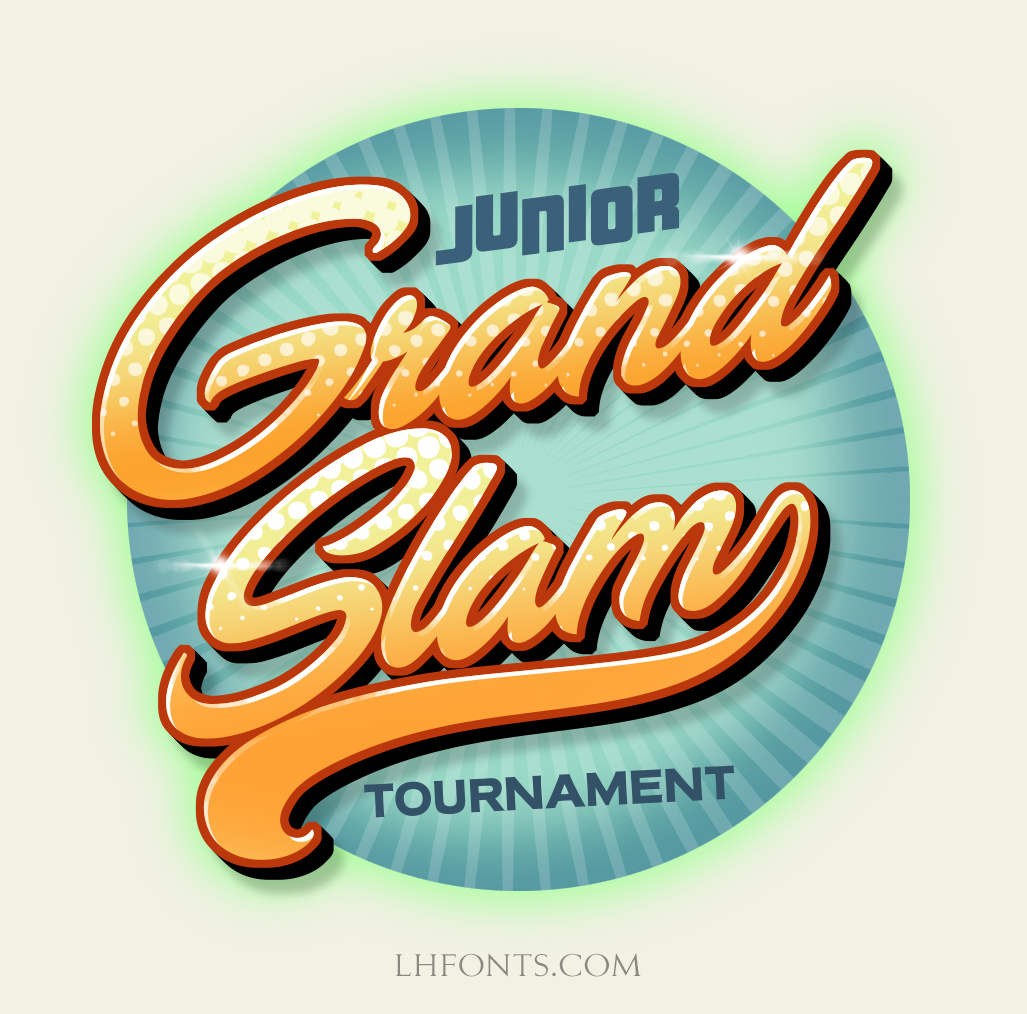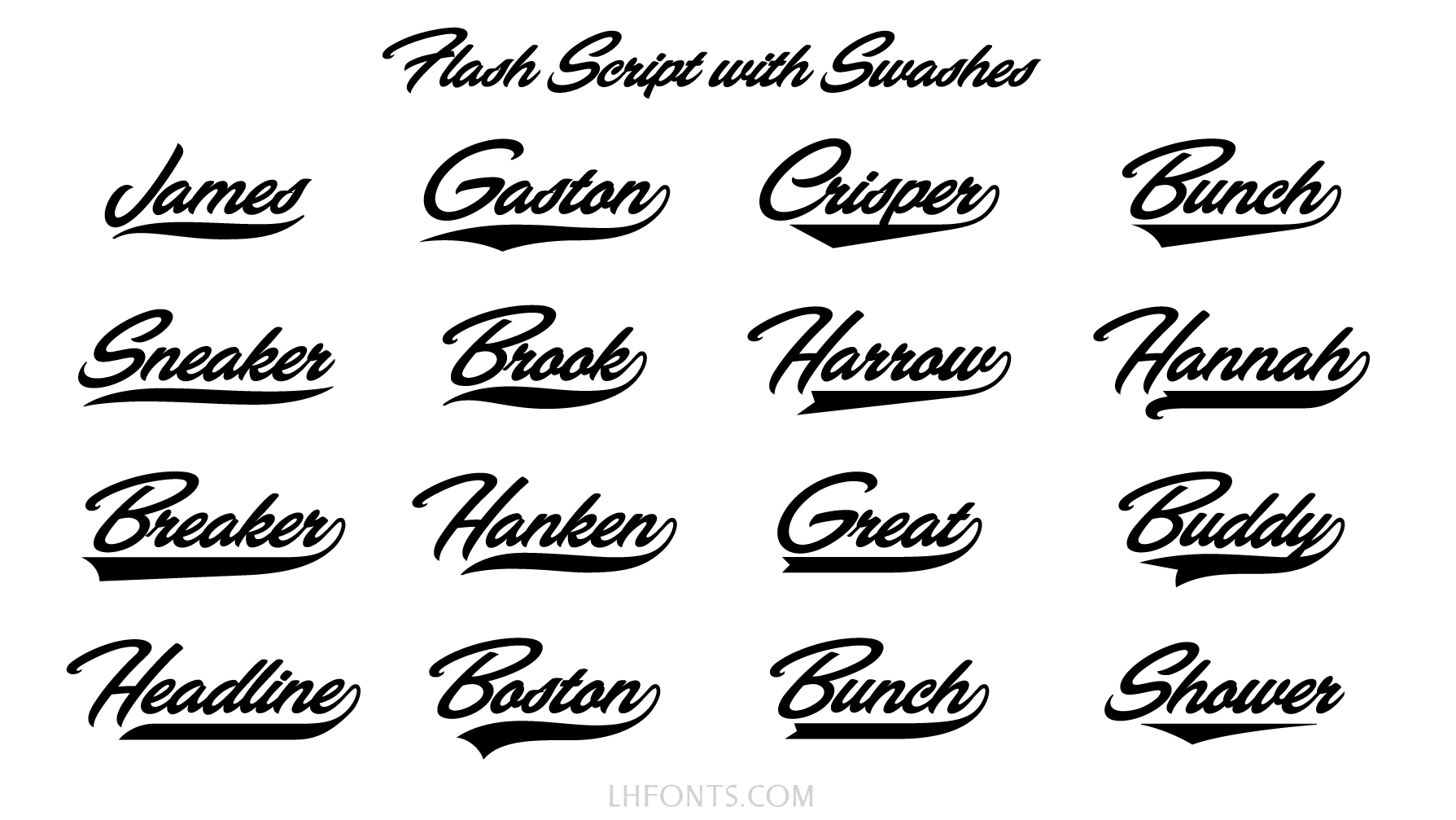
Retro script inspired by the "Beauty Parlor" plate created by Arthur's mentor Cecil Wade. This special updated set features an all new Flash Script Swash font (featuring 77 different swashes) and updated connection arms to allow the letters to connect to these new swashes. Arthur started this project one month before he passed away in 2013, but it was never completed. With permission from Arthur's sister, we were able to complete the project. We've taken great care to create swashes that match Arthur's original style and to ensure that they connect properly. We are proud to offer this updated set free to those who purchased prior to 5/22/2017. See these details for updating.
Set includes 3 fonts: Flash Script 1 with large decorative caps, Flash Script 2 with smaller casual caps, and Flash Script Swash font with each letter corresponding to a unique swash.